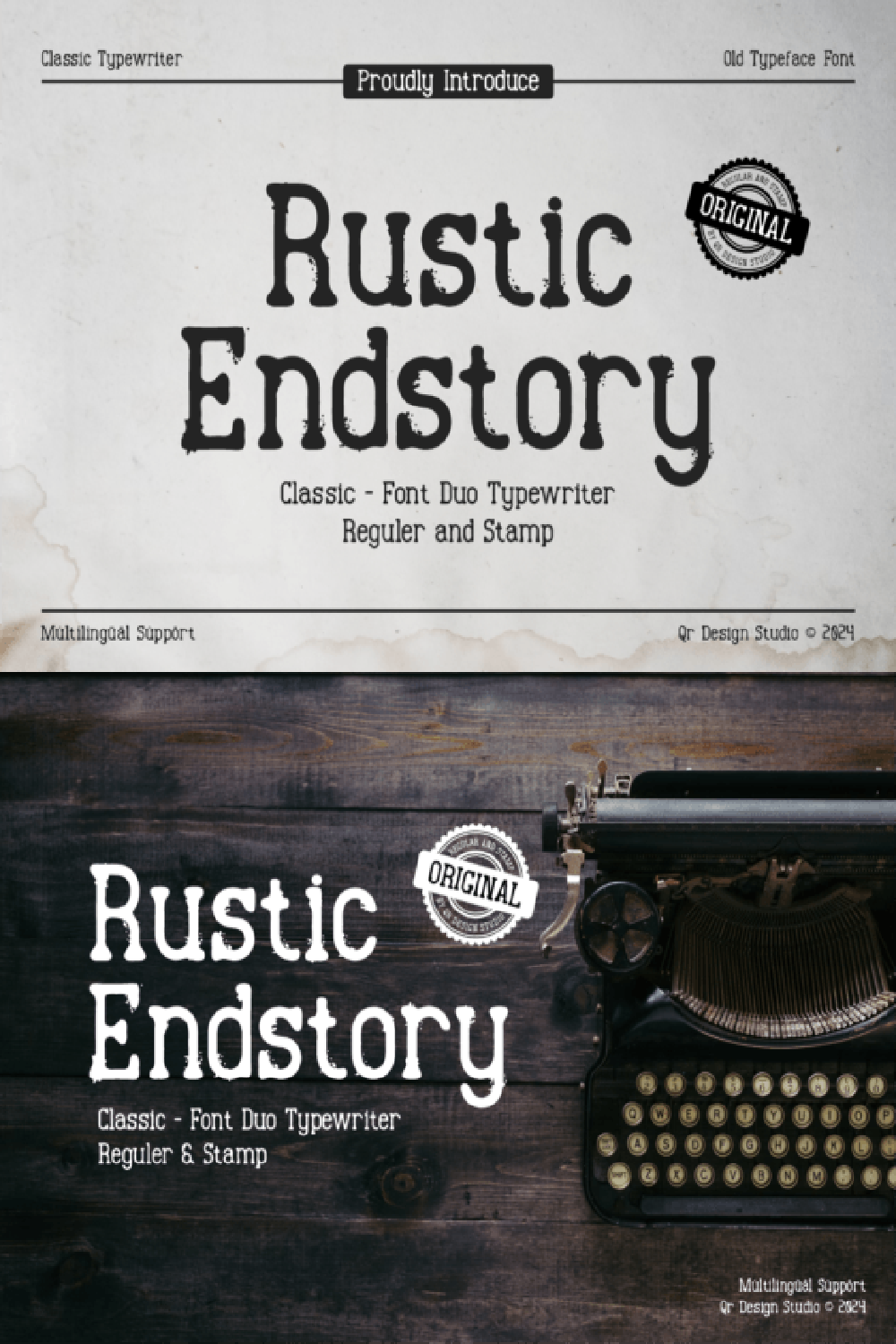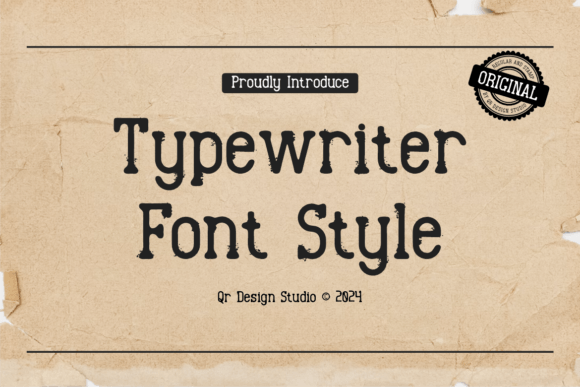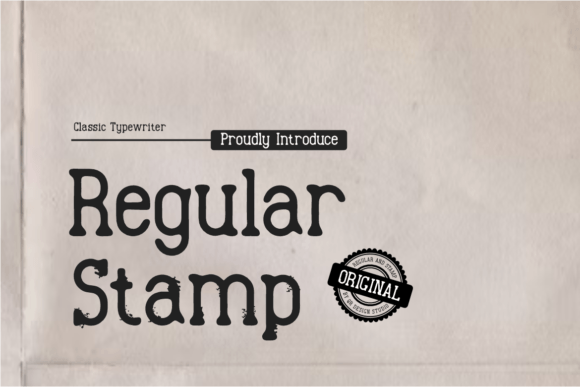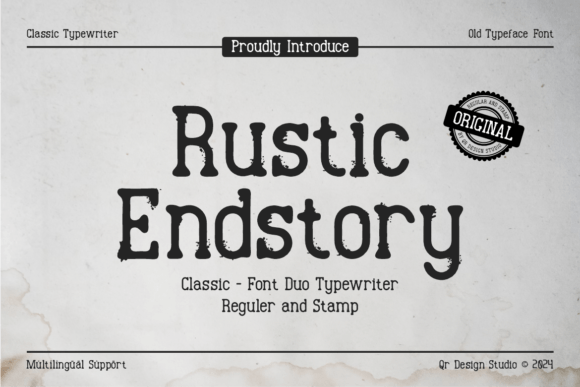
Rustic Endstory Font: Vintage Typewriter Serif for Unique Designs
About the Rustic Endstory Font
Explore the possibilities with Rustic Endstory Font, a font that offers both beauty and functionality. Discover Rustic Endstory: a vintage-style, typewriter serif font that transports you back in time. With its weathered texture and classic structure, it evokes the nostalgia of old manuscripts and analog communication. Perfect for creating historical documents, themed event invitations, and unique literary works.
Rustic Endstory excels in headlines, short text blocks, and branding applications where a vintage aesthetic is desired. Its character shines in projects evoking nostalgia, craftsmanship, or a historical feel—think coffee shop logos, book covers, or wedding invitations. Avoid using it for body text or UI elements; its texture and character spacing make it less legible for extended reading.
The font’s personality is decidedly rustic and nostalgic, yet possesses a certain refined elegance. It pairs well with clean sans-serif fonts like Montserrat or Open Sans for a balanced contrast, or with a playful script font like Great Vibes for a more whimsical feel. Consider pairing it with a geometric sans-serif like Futura for a modern twist on the vintage theme.
For a truly authentic feel, consider using Rustic Endstory alongside textured backgrounds or vintage imagery. This will reinforce its nostalgic charm and create a cohesive design.
Rustic Endstory Font Usage Examples
Rustic Endstory Font Example